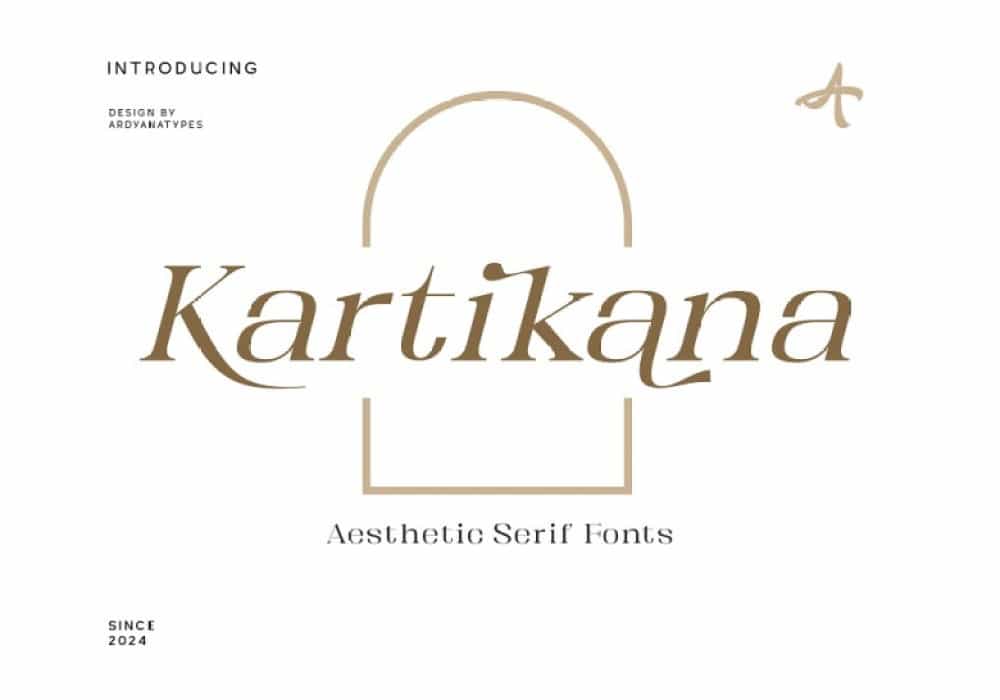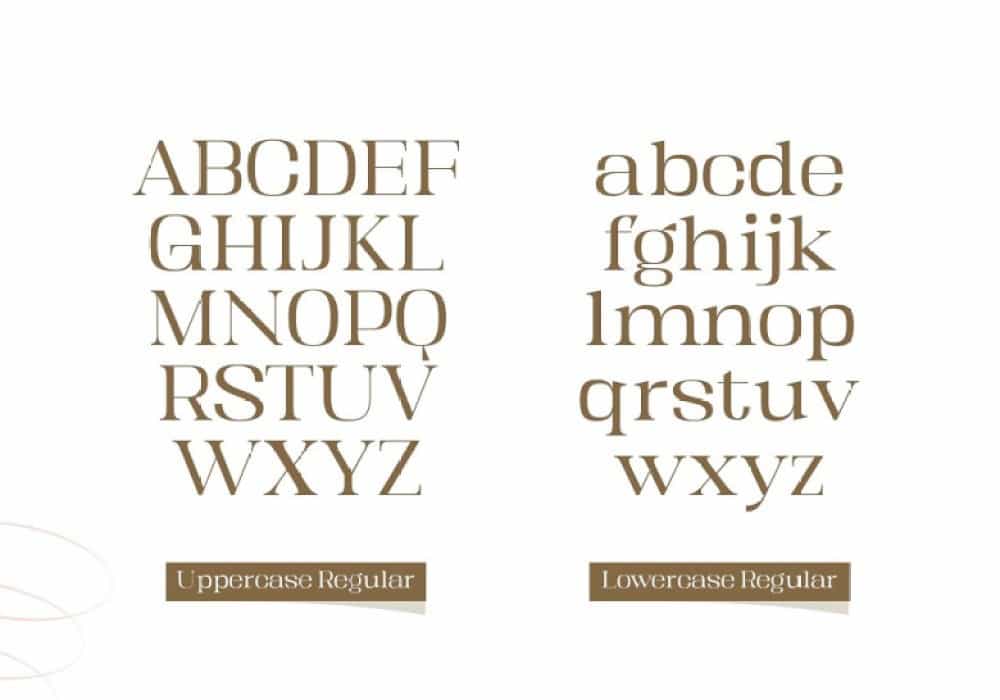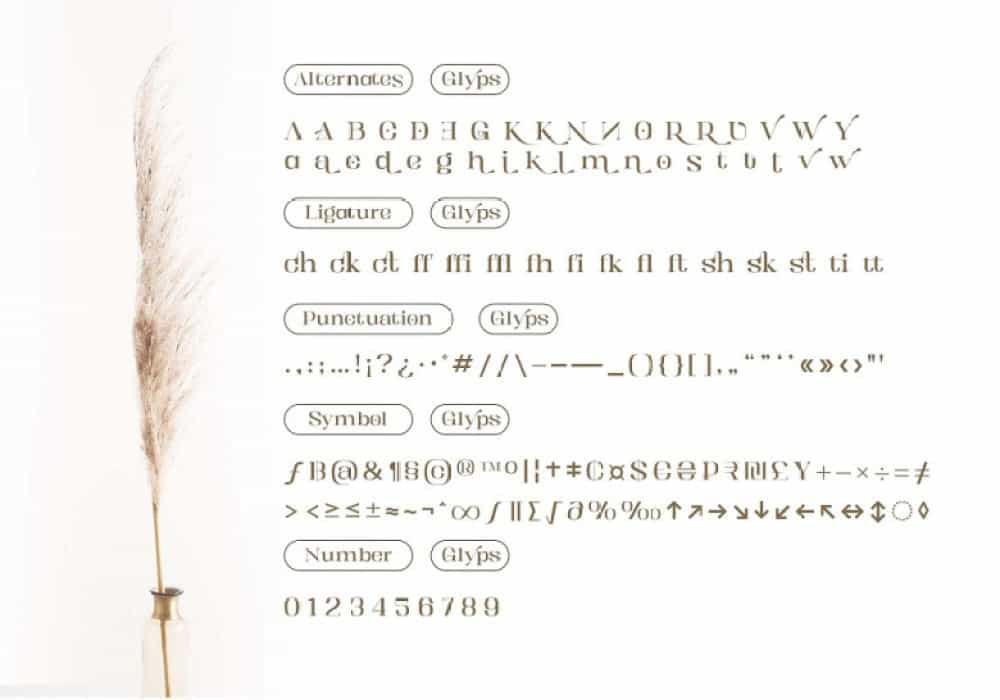
Kartikana Font
Kartikana – an exclusive and stylish serif-font that will take you back in time to the 80s. Thus, following the latest tendencies of modern font design, Kartikana has a very actual and stylish design. Kartikana has an OpenType feature, which gives the opportunity to use a lot of styles in one font and create unique and virtually limitless designs.